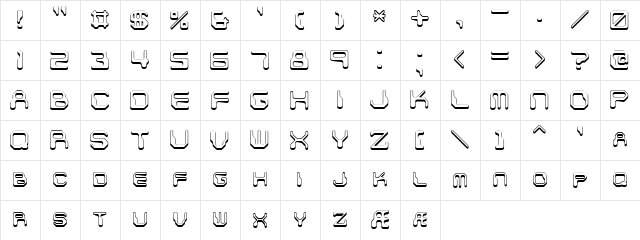
Chintzy CPU Shadow (BRK) Regular
Design Context for Chintzy CPU Shadow (BRK) Typeface
Chintzy CPU Shadow (BRK) is built around its visual character rather than neutral utility — its distinctive forms are designed to make an impression at display sizes.
Font Pairing: Pair with a clean neutral sans-serif for body copy to let Chintzy CPU Shadow (BRK)'s character lead without overwhelming the composition.
Pro Tip: Treat Chintzy CPU Shadow (BRK) as the centrepiece of your typographic hierarchy. One strong heading set in a decorative face can carry an entire layout.